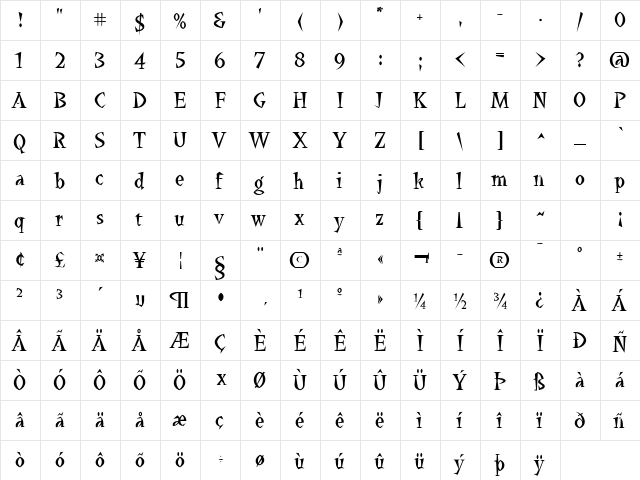
Quetzalcoatl Regular Font Preview
Quetzalcoatl Regular
Quetzalcoatl Regular Font Details
Design Context for Quetzalcoatl Typeface
Quetzalcoatl is a composed and adaptable typeface that performs quietly and consistently across a wide range of design contexts.